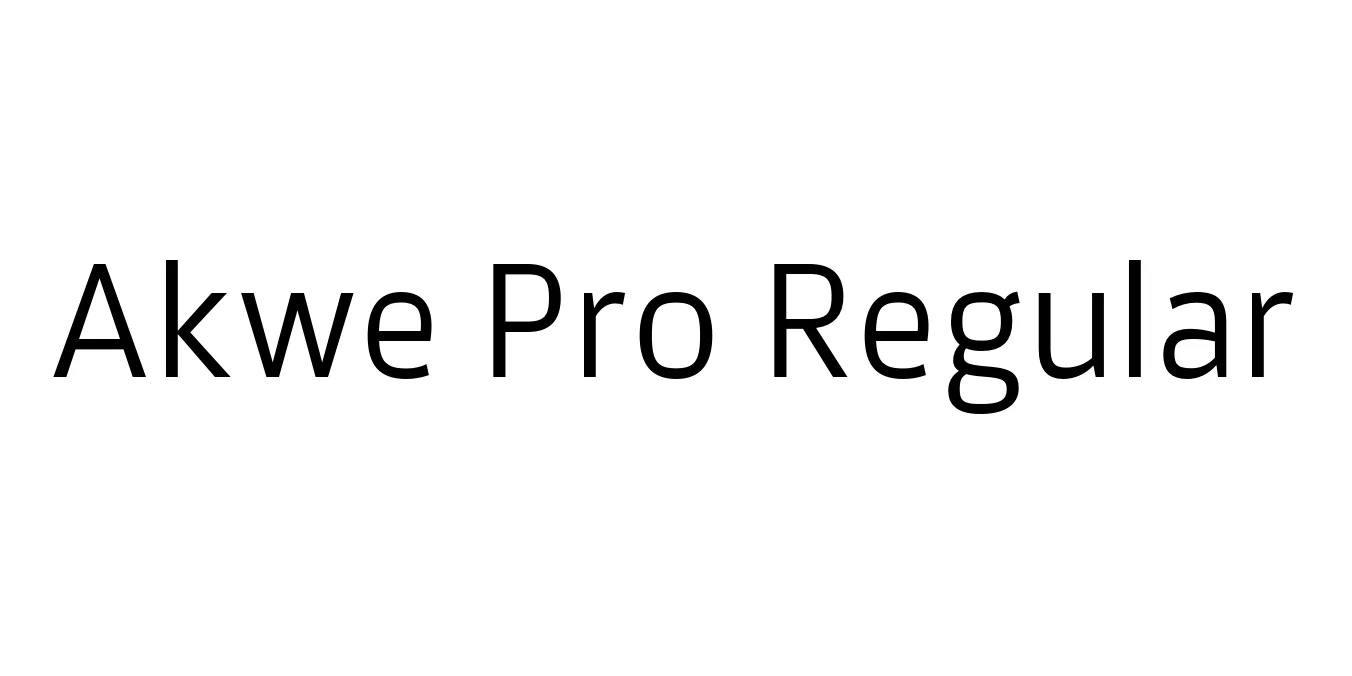
Akwe Pro Regular
Designed by Rafał Buchner
Akwe Pro Regular is a contemporary sans-serif typeface designed by Rafał Buchner. It was meticulously crafted to balance geometric precision with high legibility, resulting in a versatile font family that excels in both digital and print environments. The typeface features a large x-height and open counters, which ensure clarity even at smaller point sizes, making it an ideal choice for complex user interfaces and editorial design.
The design of Akwe Pro draws inspiration from modern grotesque styles but incorporates unique stylistic flourishes that give it a distinct personality. It includes extensive OpenType features such as tabular figures, ligatures, and localized forms, supporting a wide range of Latin-based languages. Its clean, professional appearance makes it a staple for designers looking for a sophisticated alternative to traditional geometric sans-serifs.
Akwe Pro Regular Best Uses
Highly legible for mobile apps and web platforms.
Perfect for creating a clean and professional corporate identity.
Excellent for magazine layouts and body text in books.
Strong and clear for billboards and digital marketing banners.